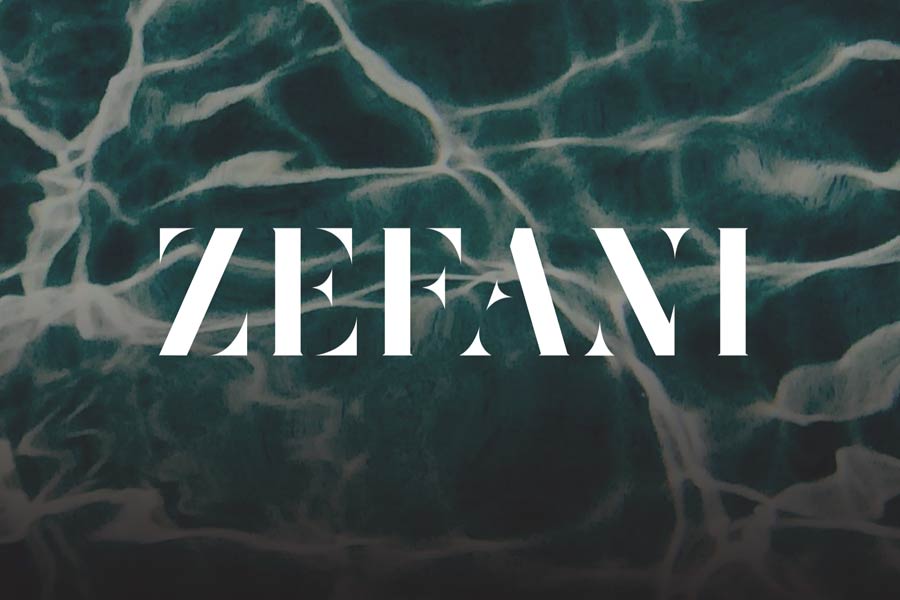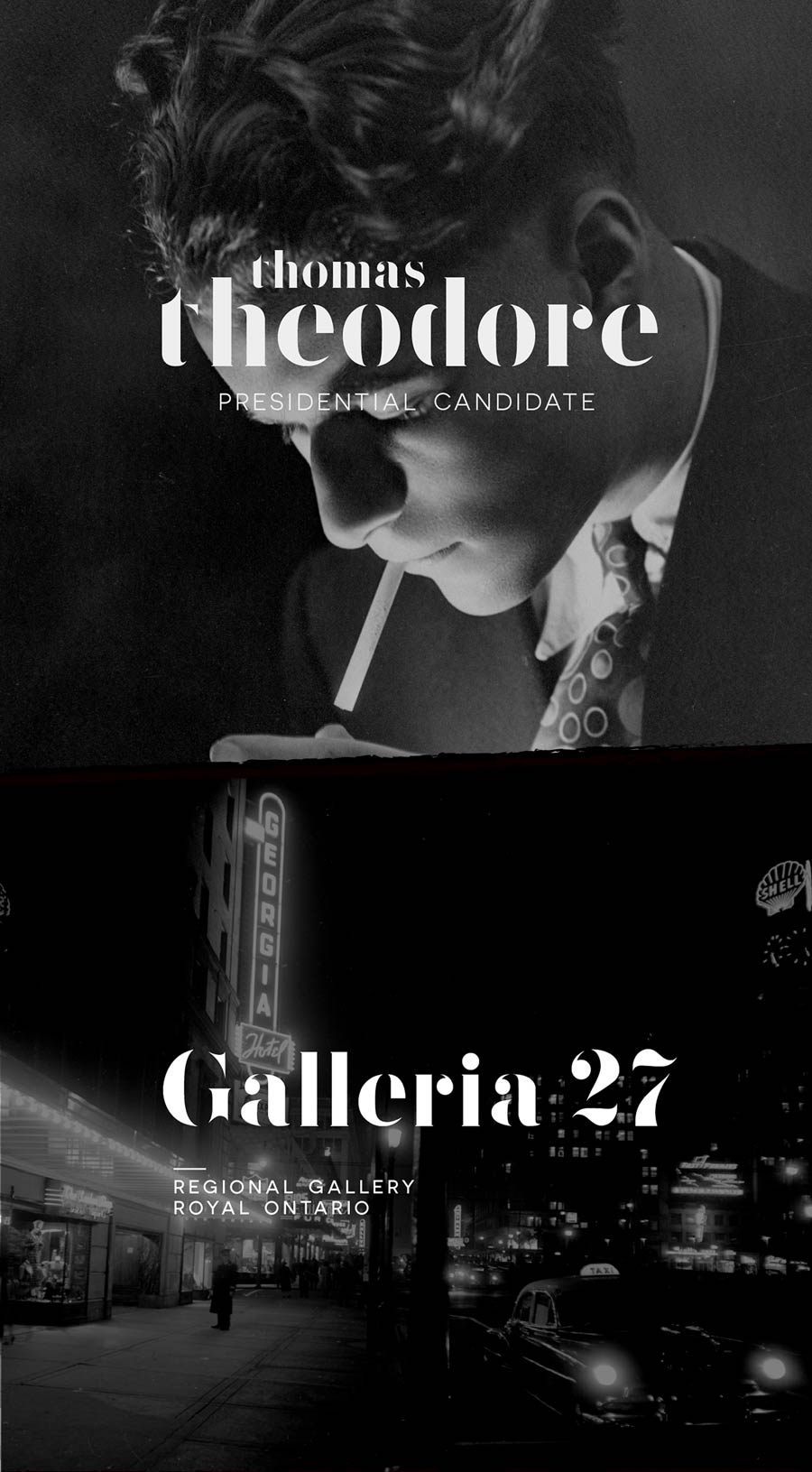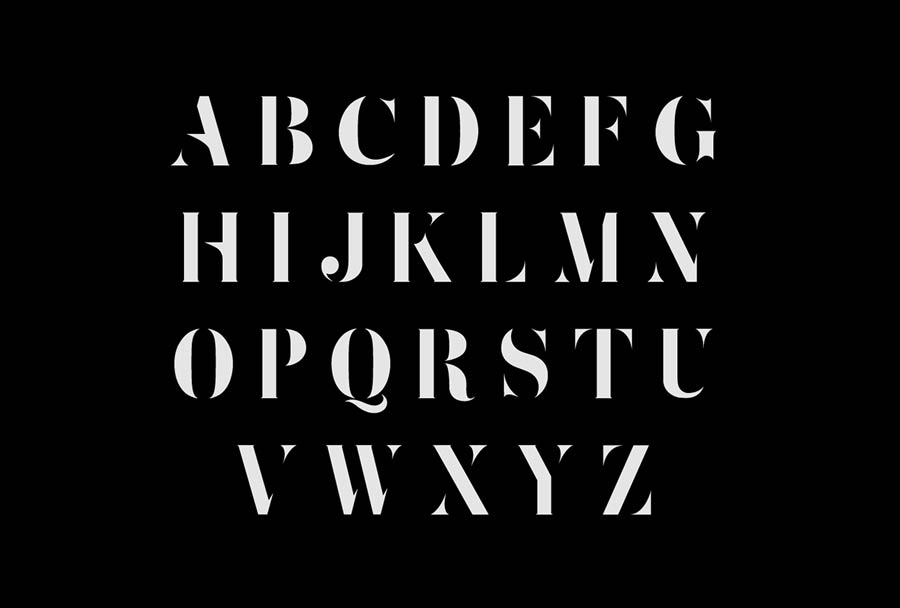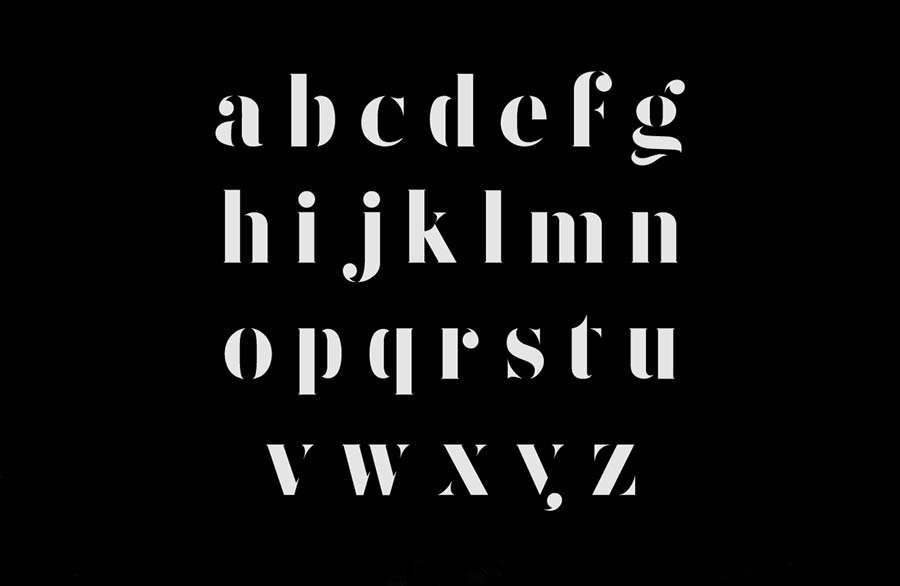
Zefani is a font family that consists of four styles: 3 sans serifs with different weight and one stencil style which is free to download for personal use. Zefani Stencil is serif-ish is design, making it quite elegant and also has vintage feel on it. It completes with latin characters, numbers and punctuations.